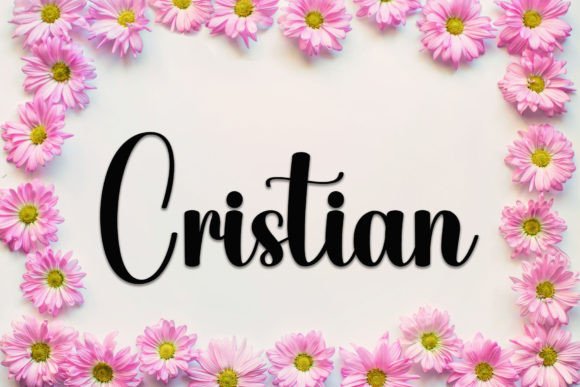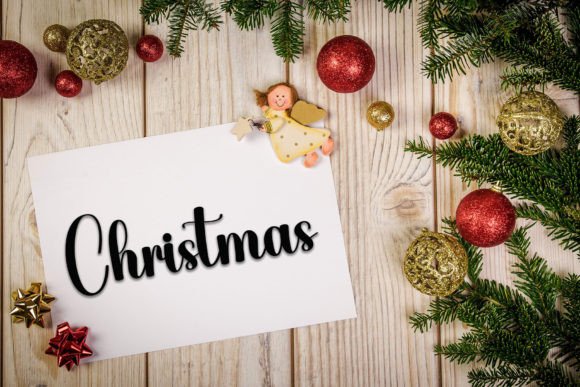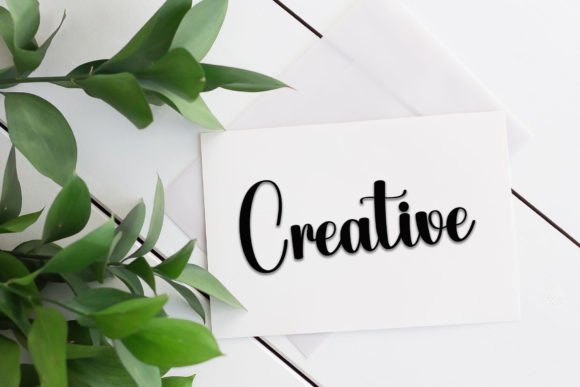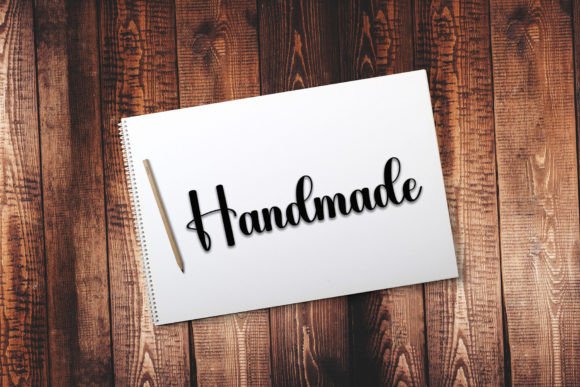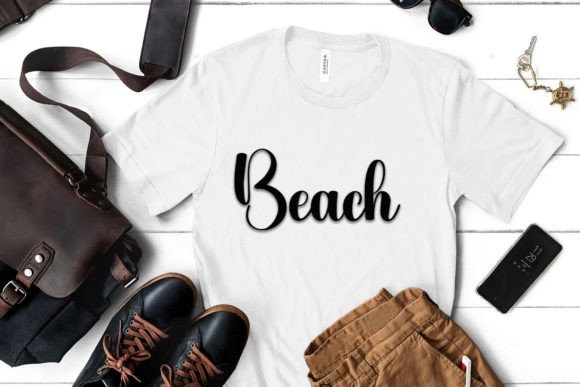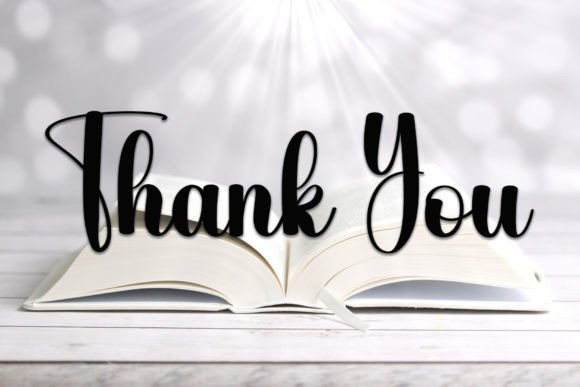
Bible Font: Elevate Your Designs with Elegance and Timelessness
Are you a designer or crafter looking for a font that exudes elegance and sophistication? Look no further than the Bible Font, a beautiful handwritten font that is sure to capture your heart. With its incredibly distinct and timeless style, this font is perfect for adding a touch of refinement to your favorite projects.
The Characteristics of Bible Font
Bible Font is a neat and beautiful handwritten font that boasts an elegant touch. Its unique characteristics make it stand out from other fonts, and its versatility ensures that it can be used in a wide range of design applications. Here are some of the key features that make Bible Font so special:
• Handwritten style: Bible Font has a beautiful, handwritten style that gives it a personal and intimate feel.
• Elegant touch: The font’s elegant touch makes it perfect for designs that require a high level of sophistication.
• Distinct and timeless style: Bible Font’s incredibly distinct and timeless style ensures that your designs will stand the test of time.
Why Choose Bible Font?
So, why should you choose Bible Font for your design projects? Here are just a few reasons why this font is a great choice:
• Perfect for a variety of projects: Bible Font is versatile enough to be used in a wide range of design applications, from wedding invitations and stationery to branding and advertising.
• Easily readable: Despite its elegant and handwritten style, Bible Font is easily readable, making it perfect for body text and other applications where legibility is key.
• Unique and distinctive: Bible Font’s unique and distinctive style ensures that your designs will stand out from the crowd and grab attention.
How to Use Bible Font in Your Designs
Using Bible Font in your designs is easy! Here are a few tips to get you started:
• Pair it with other fonts: Bible Font pairs well with other fonts, so don’t be afraid to experiment with different combinations to find the perfect look for your design.
• Use it for headings and titles: Bible Font’s elegant and distinctive style makes it perfect for headings and titles, where it can add a touch of sophistication and refinement.
• Experiment with different colors and textures: Bible Font looks great in a variety of colors and textures, so don’t be afraid to experiment to find the perfect look for your design.
Bible Font in the World of Design
Bible Font is a versatile font that can be used in a wide range of design applications. Here are a few examples of how this font can be used:
• Wedding invitations and stationery: Bible Font’s elegant and sophisticated style makes it perfect for wedding invitations and stationery.
• Branding and advertising: Bible Font’s unique and distinctive style makes it perfect for branding and advertising, where it can help to grab attention and build recognition.
• Packaging and labeling: Bible Font’s clear and readable style makes it perfect for packaging and labeling, where it can help to communicate important information to customers.
In conclusion, Bible Font is a beautiful and elegant handwritten font that is perfect for designers and crafters looking to add a touch of sophistication and refinement to their designs. With its incredibly distinct and timeless style, this font is sure to capture your heart and elevate your designs to new heights.
Whether you’re working on a wedding invitation, a branding project, or a packaging design, Bible Font is a great choice. Its versatility, readability, and unique style make it perfect for a wide range of design applications.